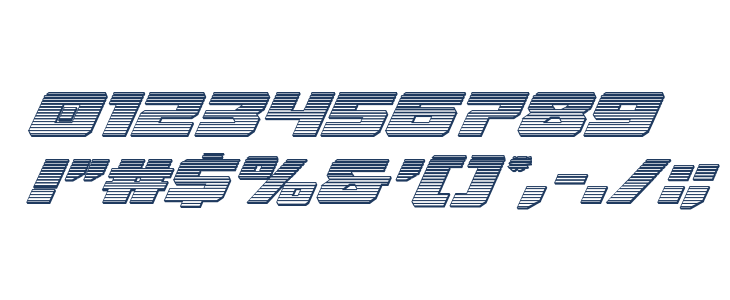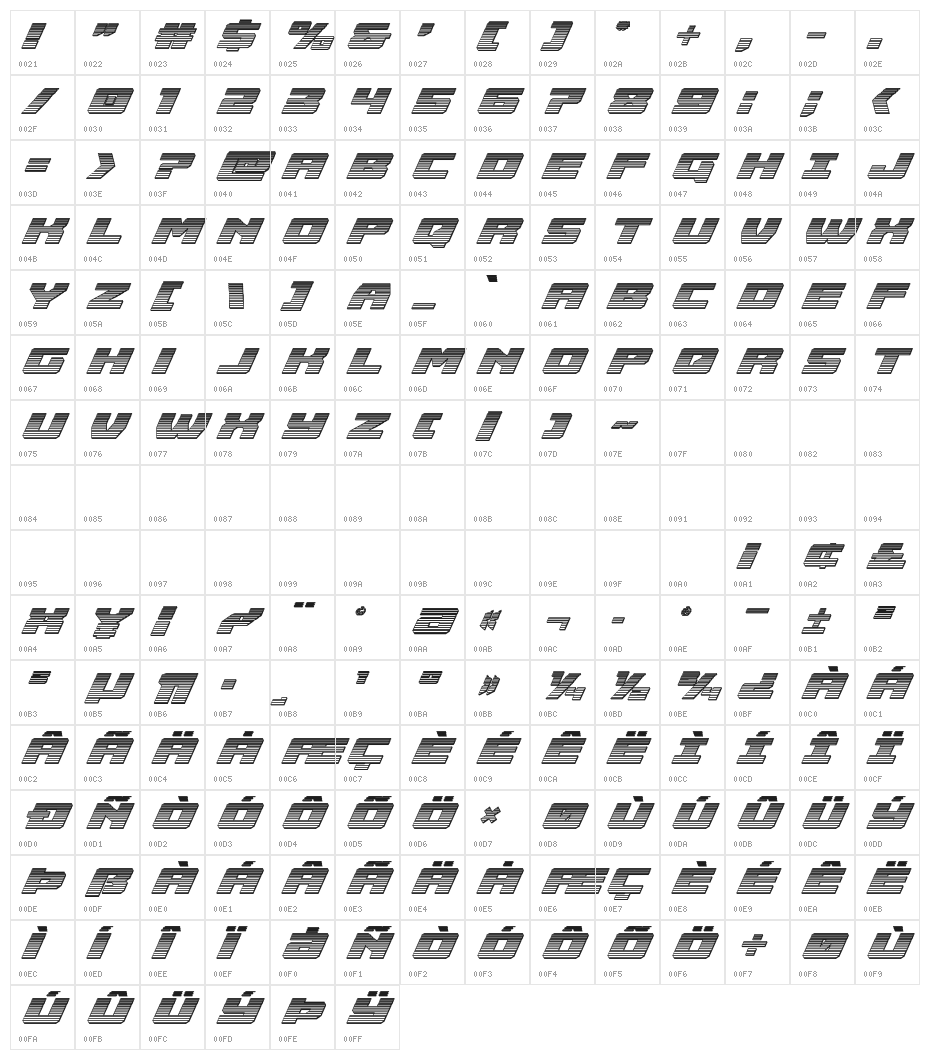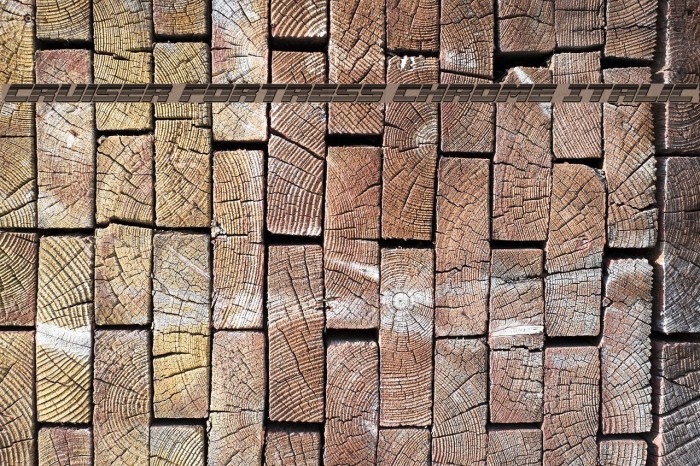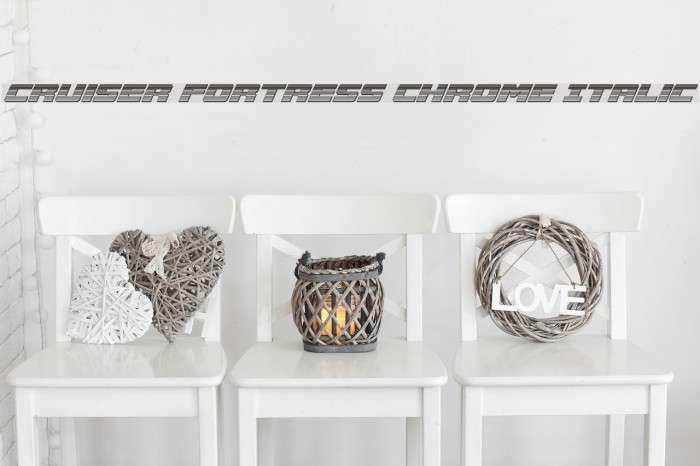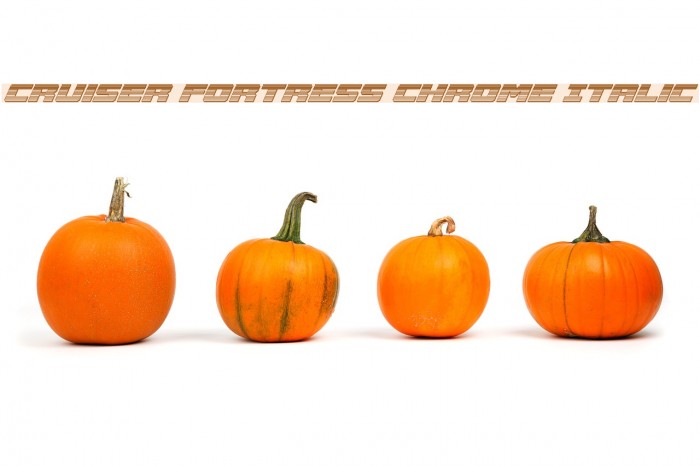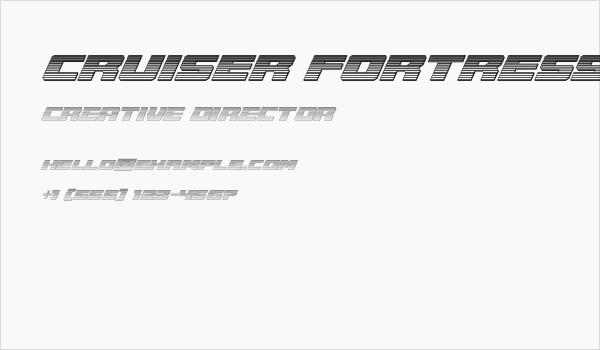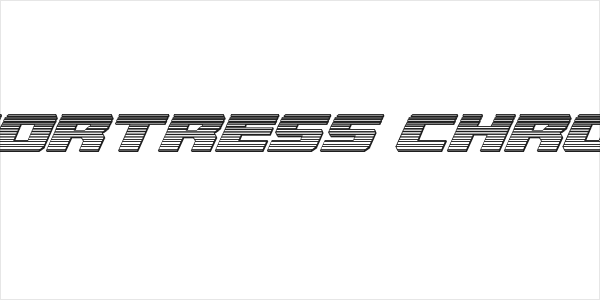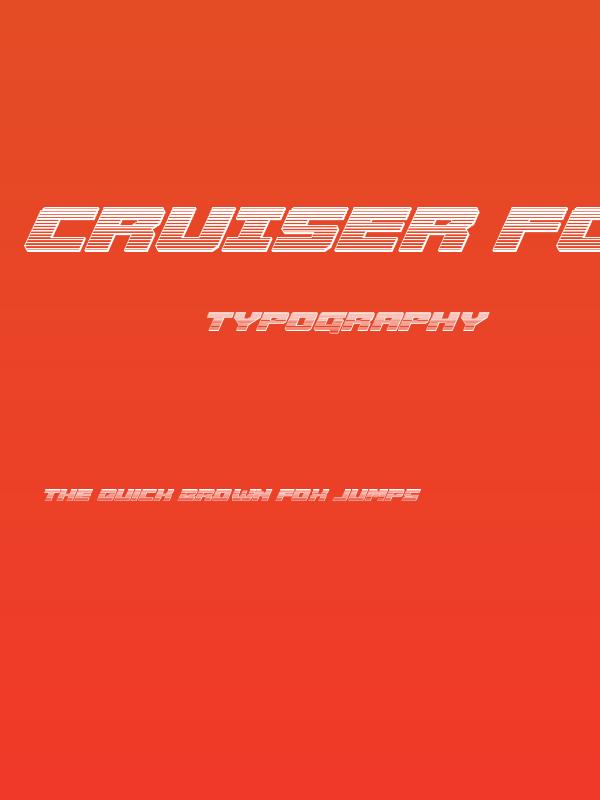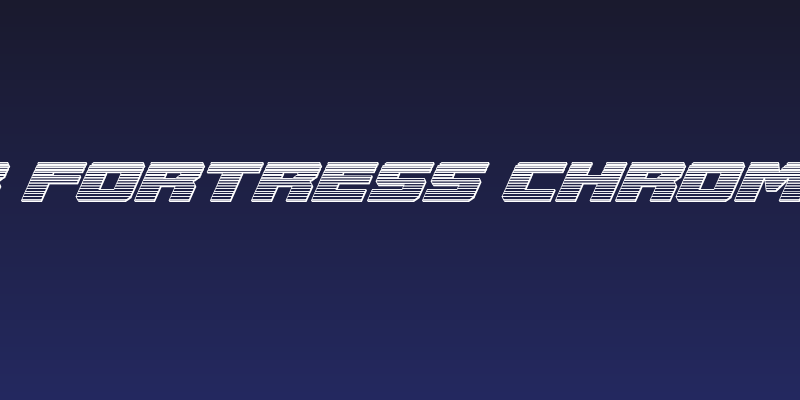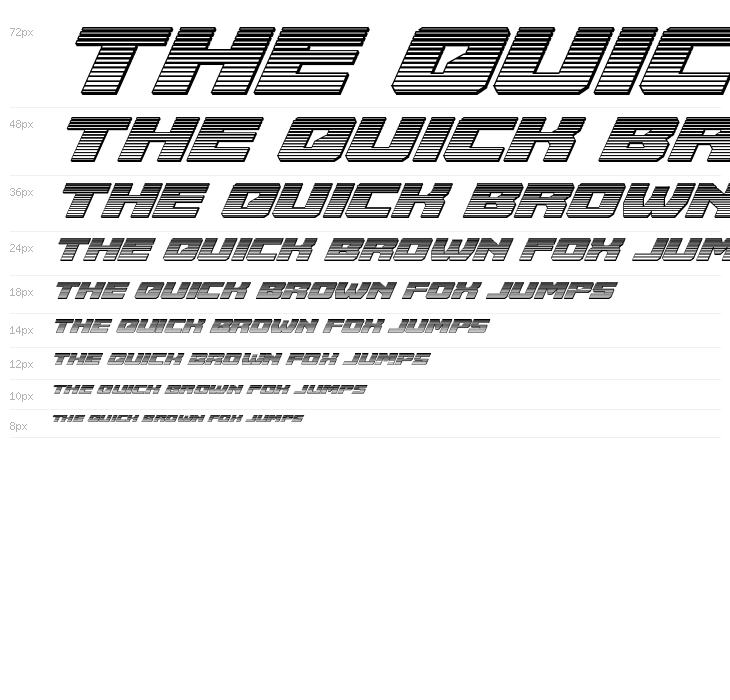
Cruiser Fortress Chrome Italic Font
Cruiser Fortress Chrome Italic Description
This font features a bold, futuristic design with a distinct chrome-like appearance. The characters are italicized, giving them a dynamic and forward-leaning stance. Each letter is composed of multiple parallel lines, creating a striped effect that enhances its modern and industrial feel. The uppercase and lowercase letters maintain a consistent style, with sharp angles and clean lines. The numerals and special characters are equally bold and stylized, ensuring uniformity across all text elements. This font's unique design makes it stand out, suitable for projects that require a strong visual impact.
| Proposed Projects | Ideal for sci-fi themed designs, video game titles, automotive branding, and tech-related logos. |